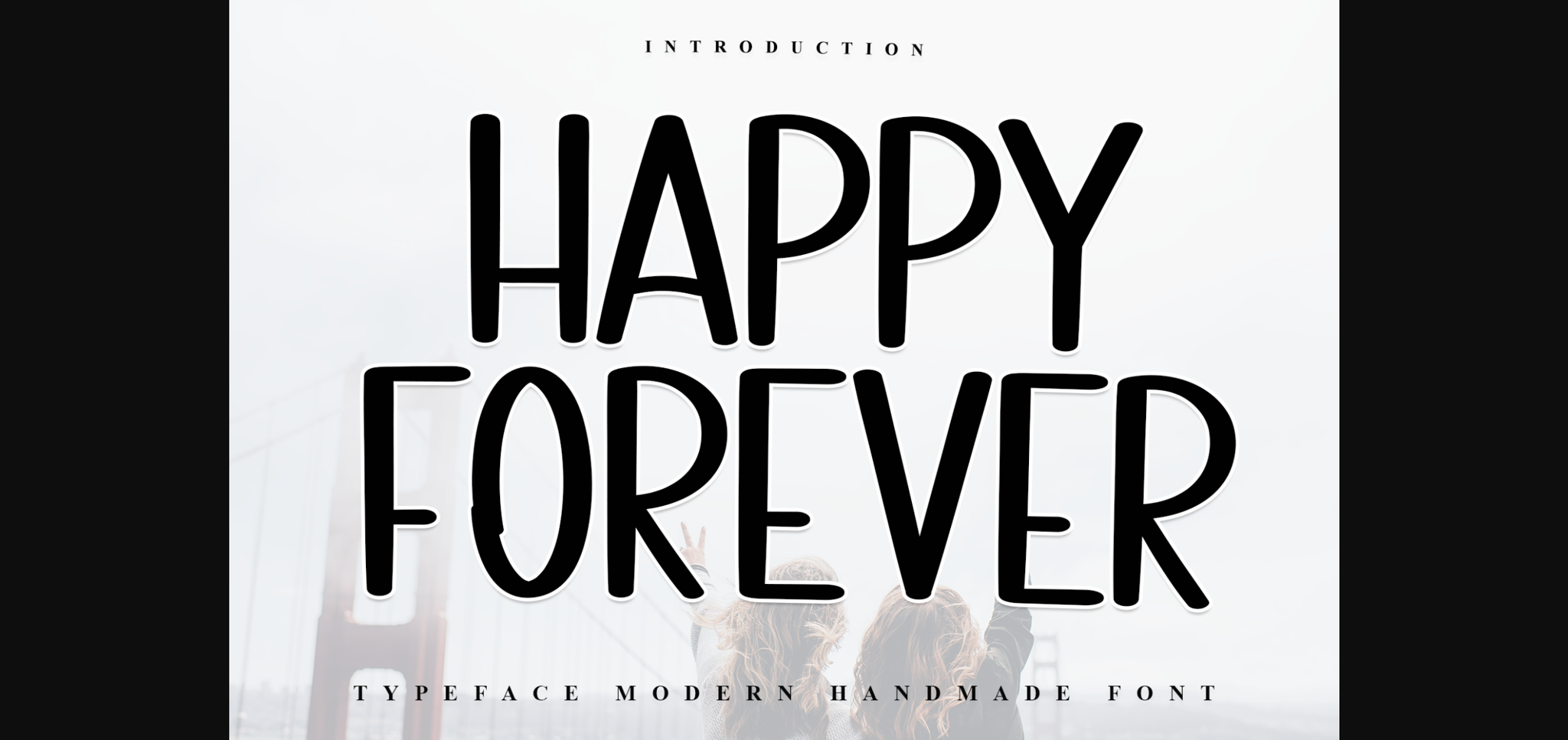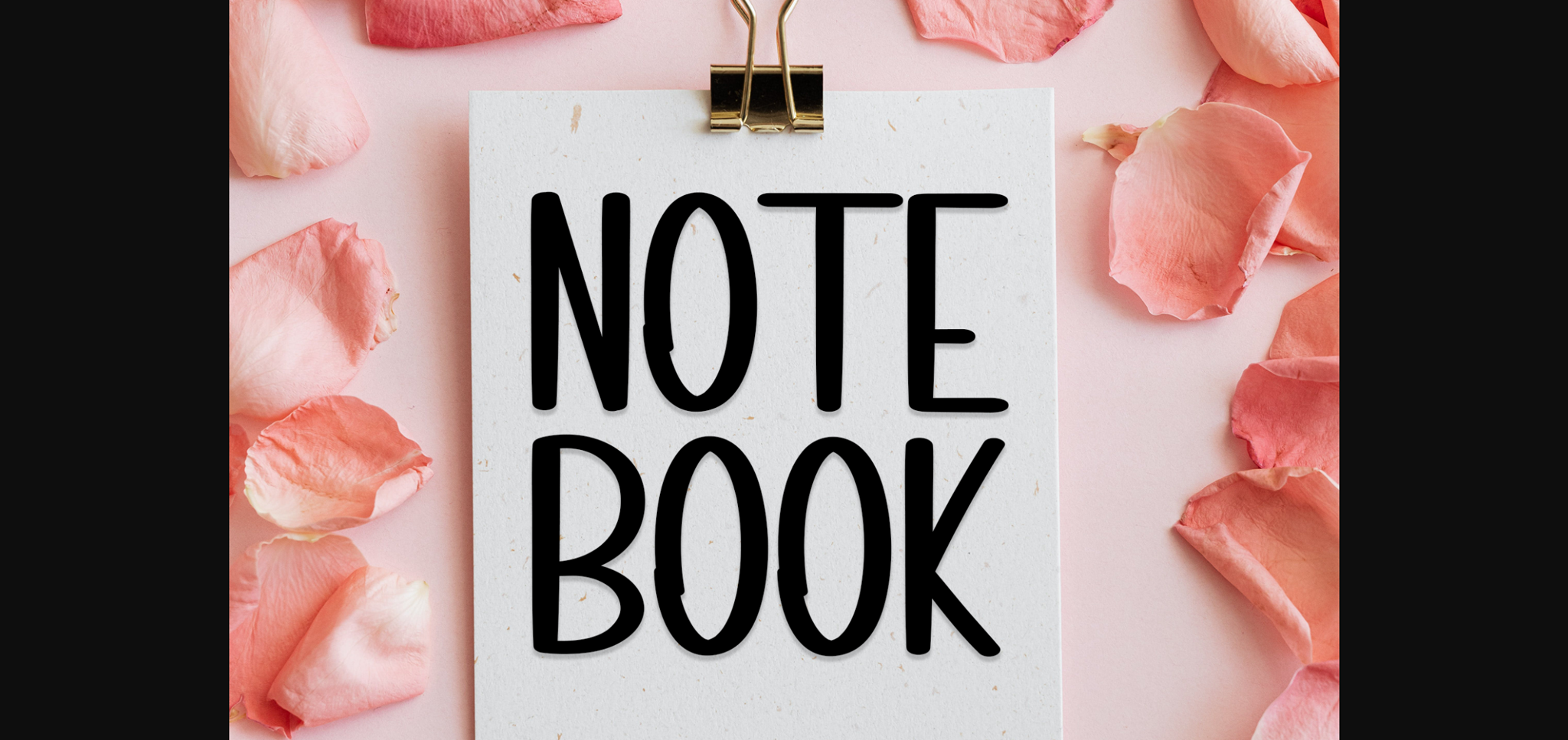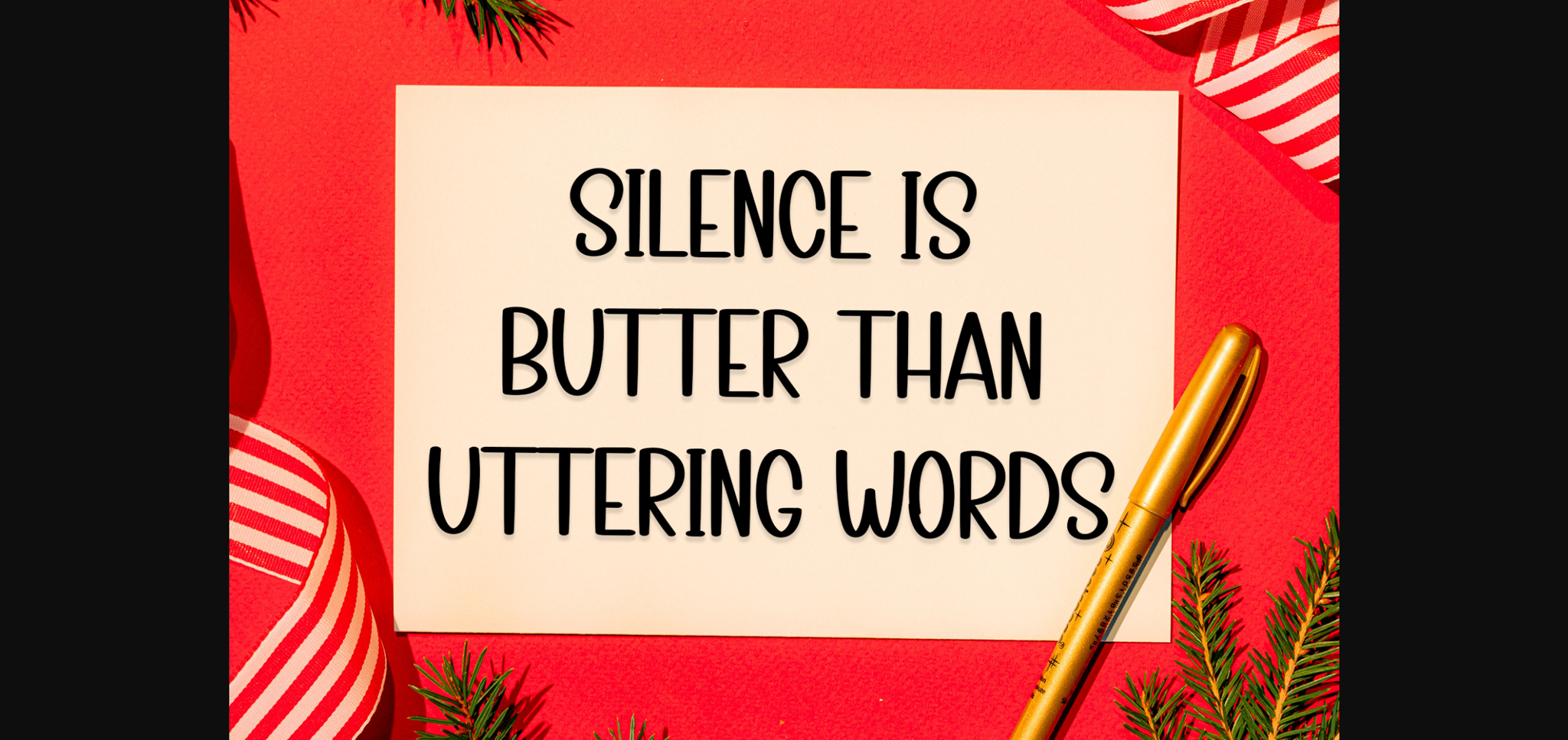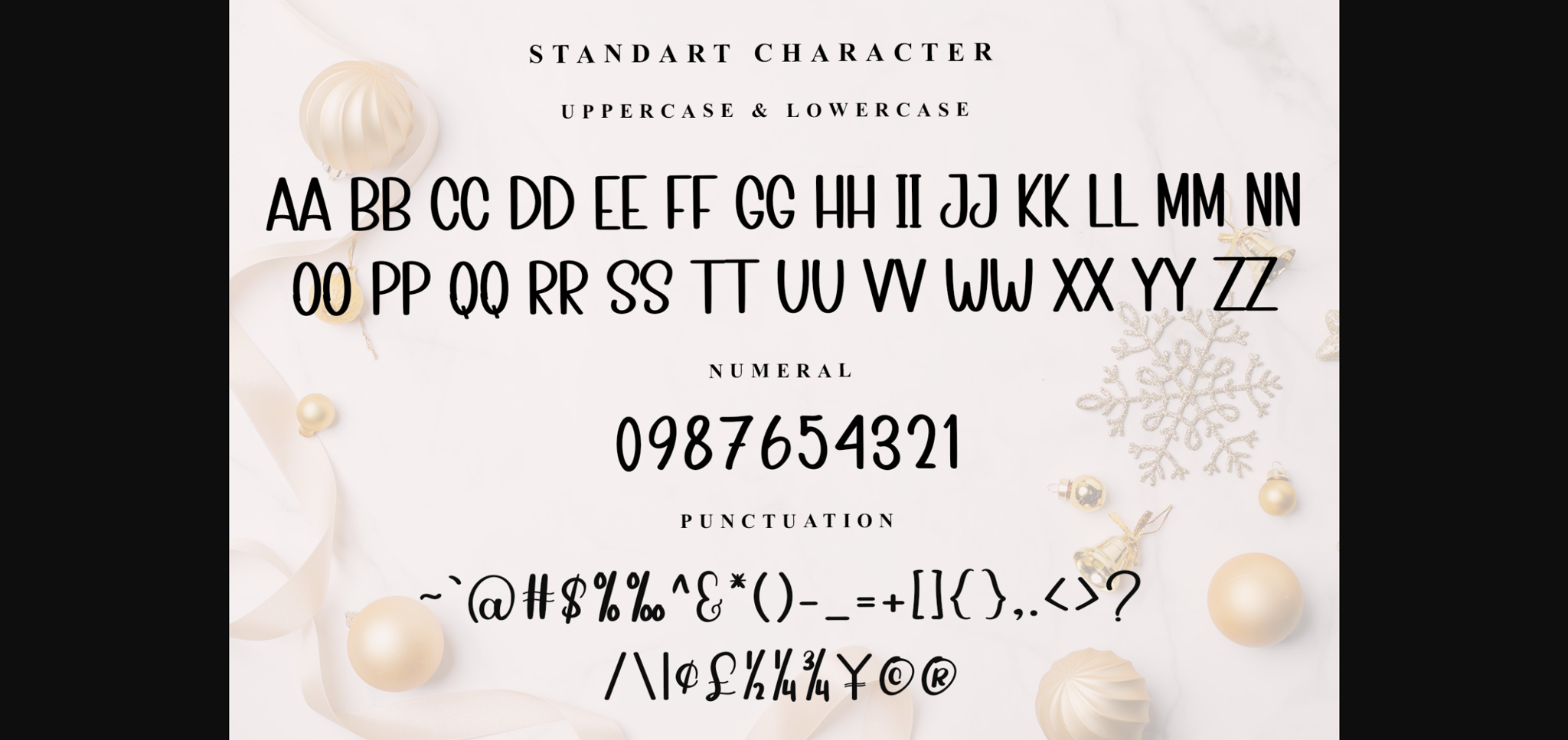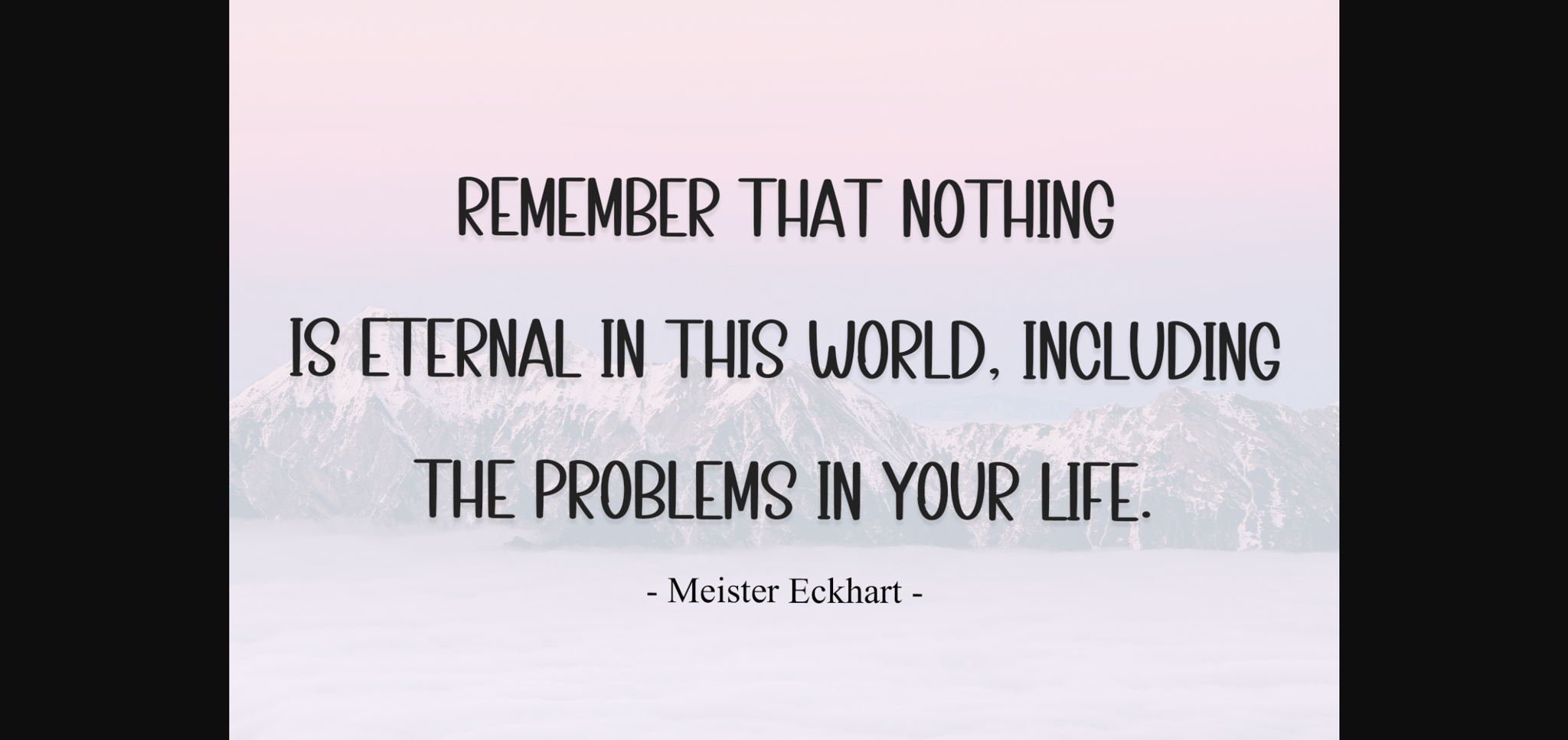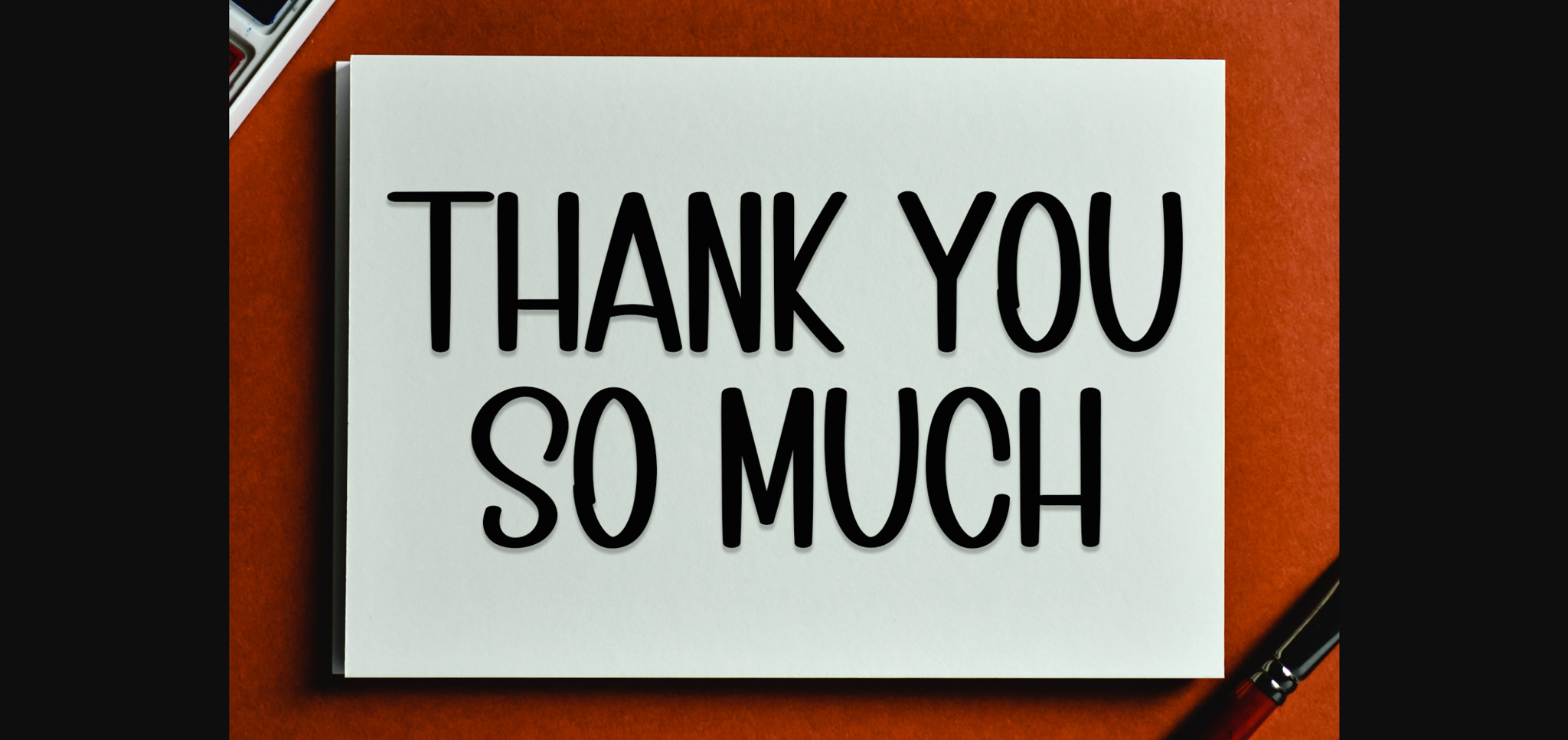
About Happy Forever Font
Happy Forever is a charming sans-serif font imbued with a sense of freshness and casual elegance. Its fluid strokes and organic lines evoke a laid-back vibe, making it perfect for various design projects. Whether used for branding, invitations, or social media graphics, Happy Forever adds a touch of warmth and personality.